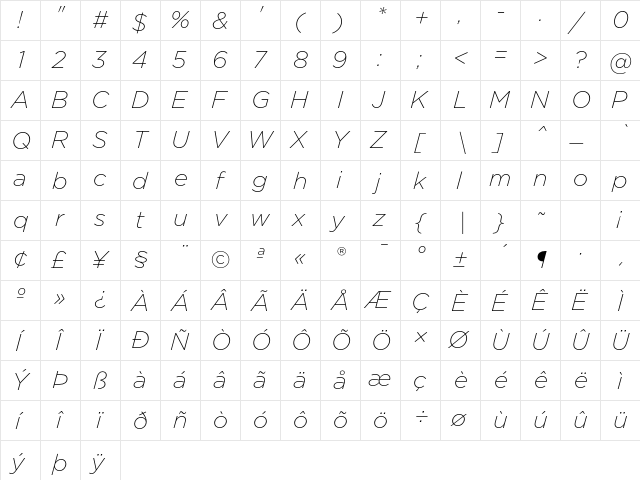
Gotham Extra Light Italic
| Foundry | Hoefler & Frere-Jones |
| Designer | Tobias Frere-Jones |
Design Context for Gotham Typeface
Gotham is a composed and adaptable typeface that performs quietly and consistently across a wide range of design contexts. The dynamic lean of this cut emphasises speed and emphasis in any layout. The delicate stroke weight brings airiness and refinement to layouts.
Pro Tip: Use Gotham for emphasis, pull quotes, and subheadings where its slanted energy can add rhythm to the layout.